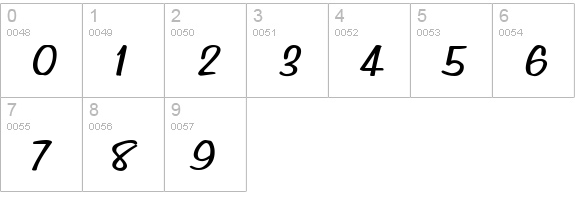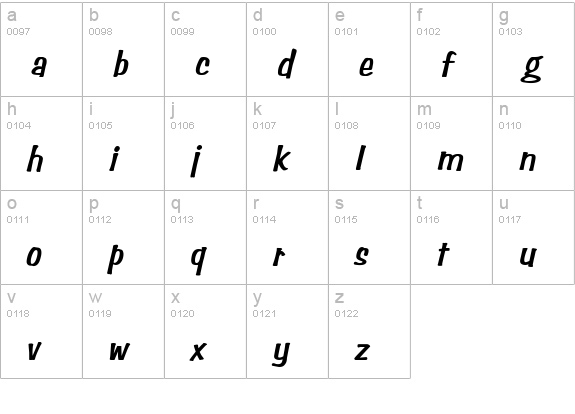
Introducing Simpson BoldItalic, a captivating and versatile font that effortlessly combines boldness with a touch of elegance. This unique typeface exudes confidence and sophistication, making it the perfect choice for those seeking to make a bold statement. With its slanted and italicized design, Simpson BoldItalic adds an extra level of flair and personality to any project, whether it be a logo, headline, or body text. One of the most remarkable aspects of Simpson BoldItalic is its versatility. This font seamlessly transitions between formal and informal contexts, making it suitable for a wide range of design applications. Its bold strokes and italicized characters create a sense of movement and dynamism, commanding attention and leaving a lasting impression. But what truly sets Simpson BoldItalic apart is its accessibility. This font is not only visually appealing, but also freely available to download at FontsMarket.com. This means that anyone can add this stunning typeface to their design arsenal without breaking the bank. Whether you're a professional graphic designer or a casual enthusiast, Simpson BoldItalic is a must-have addition to your font collection. Downloading Simpson BoldItalic from FontsMarket.com is a breeze. With just a few clicks, you can acquire this incredible font and start incorporating it into your designs immediately. The website offers a hassle-free and user-friendly experience, ensuring that even beginners can access and utilize this font effortlessly. So why wait? Elevate your designs to new heights with the captivating Simpson BoldItalic font. Its boldness, elegance, and free availability make it an irresistible choice for designers of all levels. Download it now from FontsMarket.com and let your creativity soar.